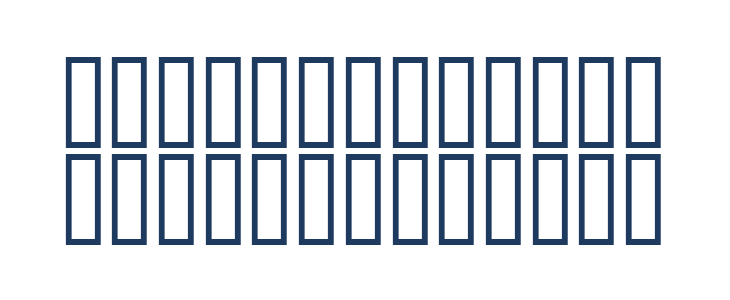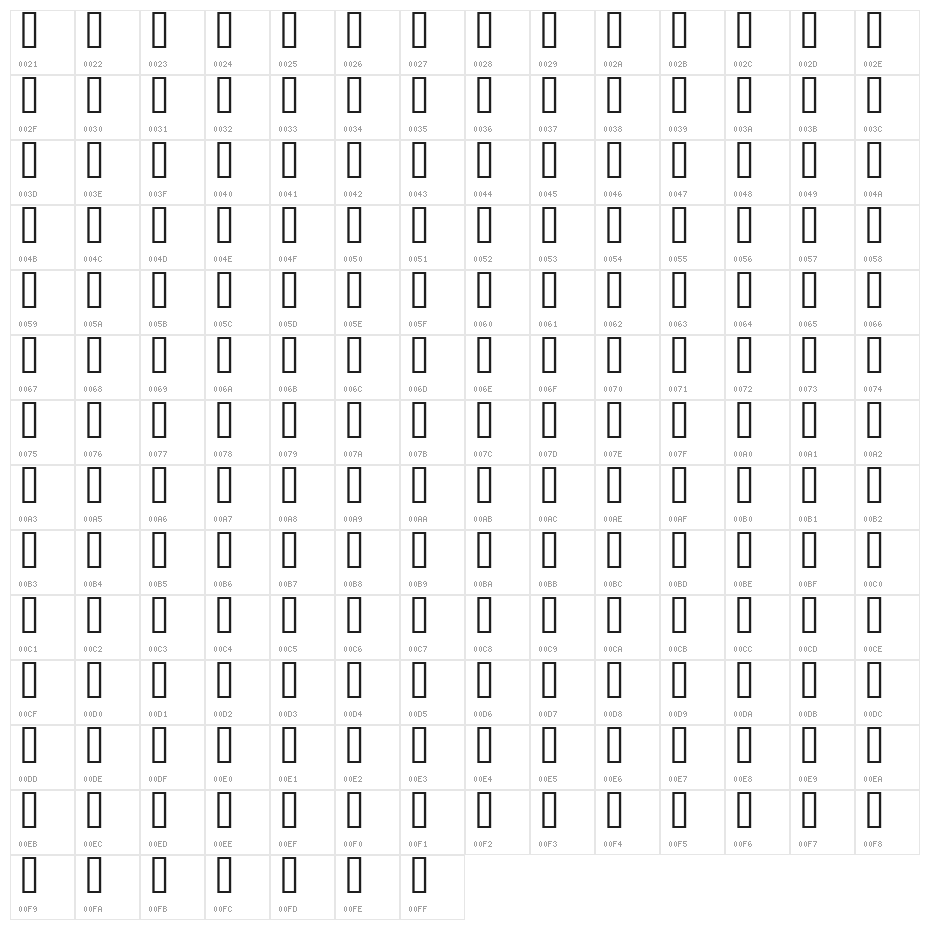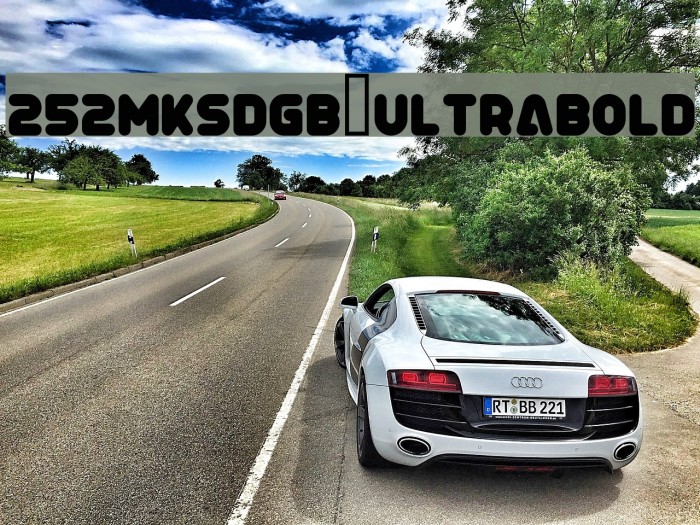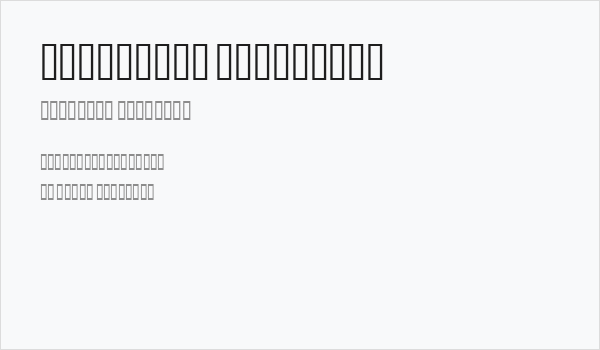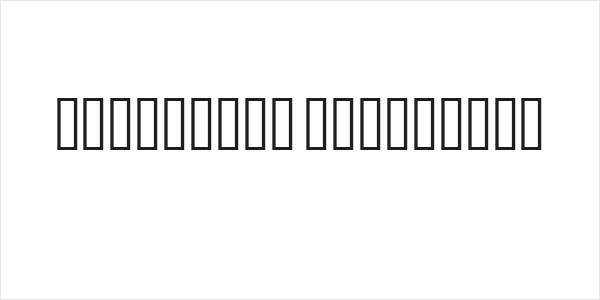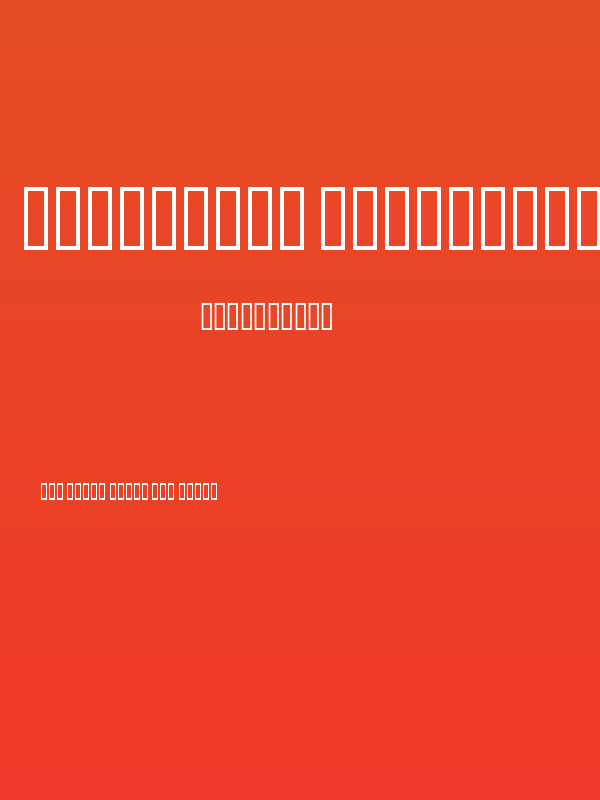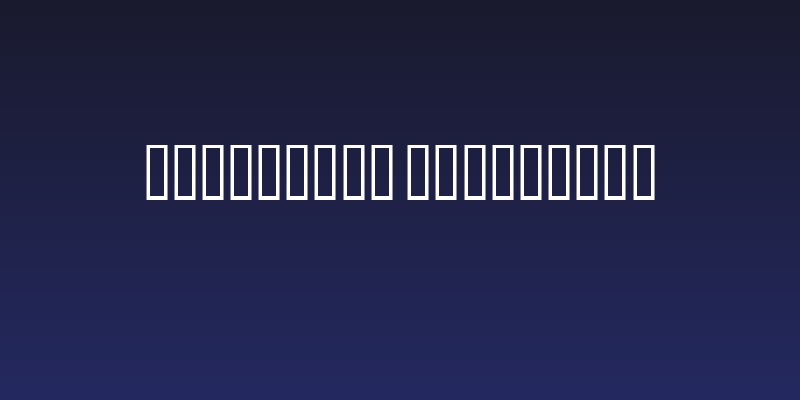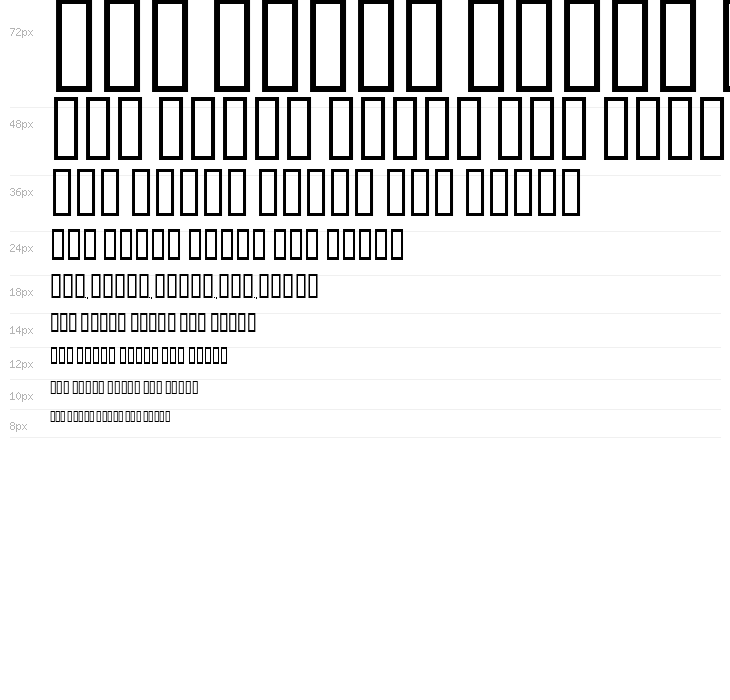
252MKSDGB UltraBold Font
252MKSDGB UltraBold Description
This font features bold, rounded characters with a strong presence, making it ideal for attention-grabbing designs. The letters are uniformly thick, providing a consistent and cohesive look across all characters. The rounded edges soften the overall appearance, adding a friendly and approachable feel. The numerals and special characters maintain the same boldness and rounded style, ensuring uniformity throughout. This font is particularly effective in settings where a modern and impactful visual is desired.
| Proposed Projects | Ideal for branding, headlines, posters, and advertising where a strong, modern look is needed. |